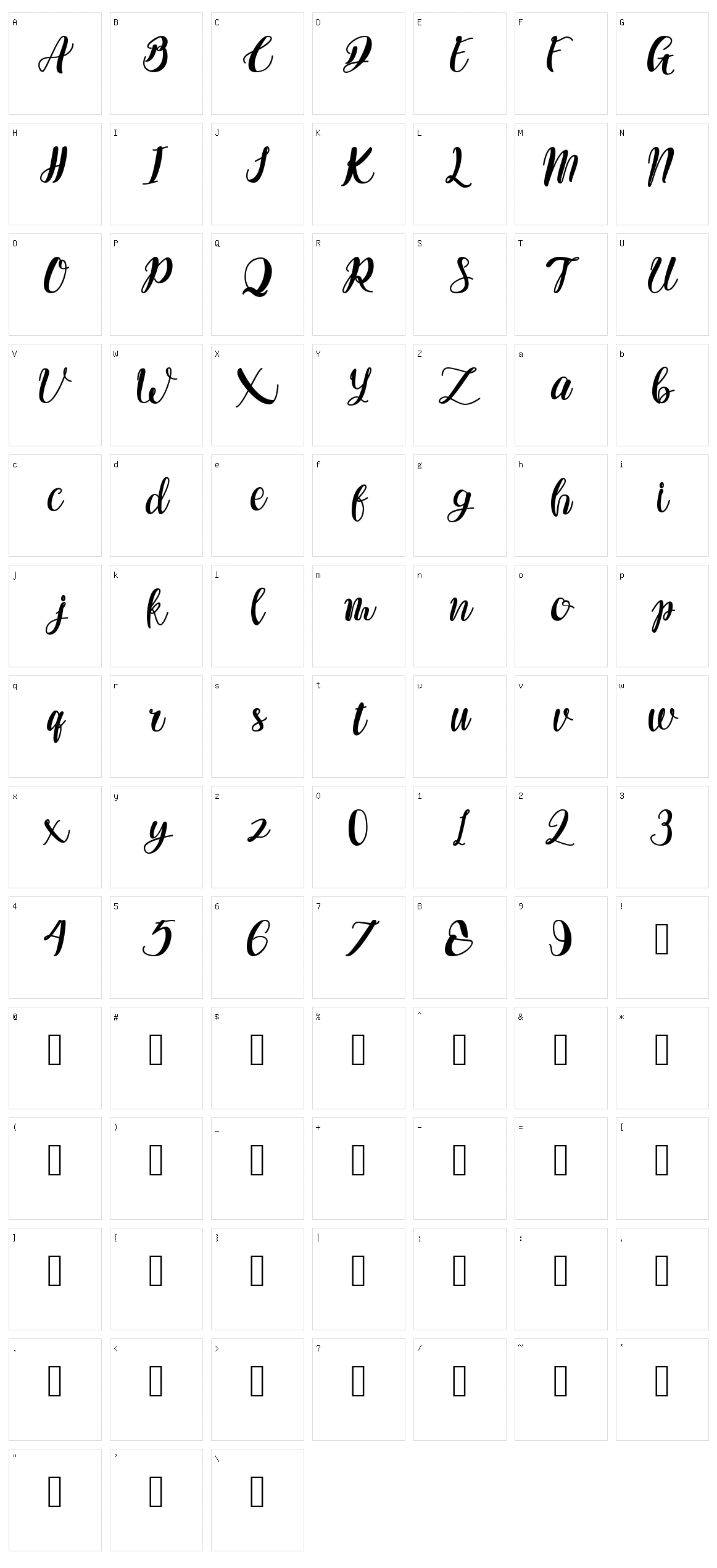
The free font Magnillium is carefully designed by Sendika Vidiyantoro, showcasing a thoughtful balance of creativity and usability and falls under the Script font style. When you download the ZIP file, it contains only 27.54 KB of font files, making it lightweight and quick to download. Please review the license details below to understand permitted usage and distribution rights. If license information is not available, we recommend using this font for personal projects only or contacting the author directly for commercial usage permissions.